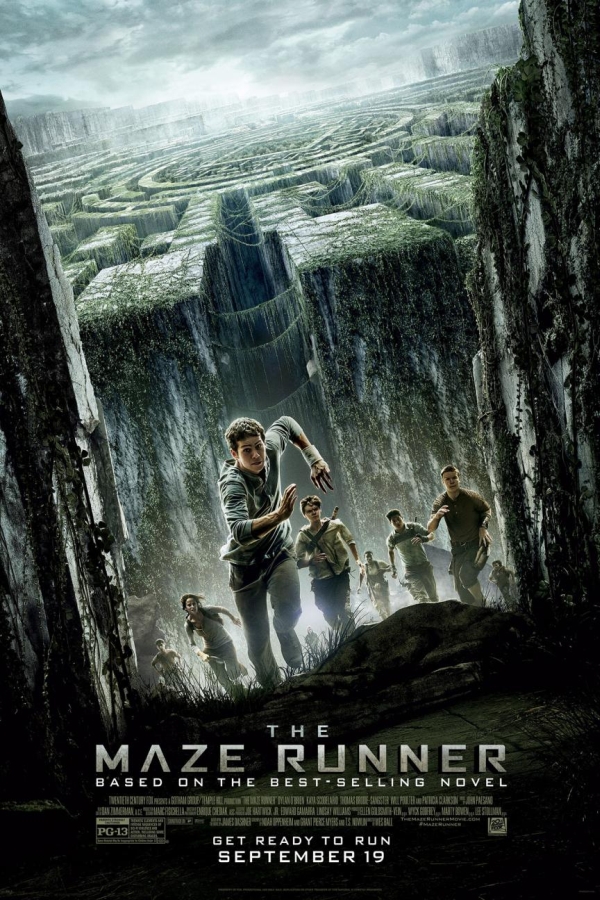
The Maze Runner Font
Fonts in UseThe Maze Runner s a science-fiction film based on the novel of the same name by James Dashner, and follows a group of teenagers who are trapped in a deadly maze and must find a way out to uncover the truth about their situation.
The movie title font on the poster resembles the square sans-serif font Agency Wide Bold, originally designed in 1932 by Morris Fuller Benton. More details about the font can be found here.